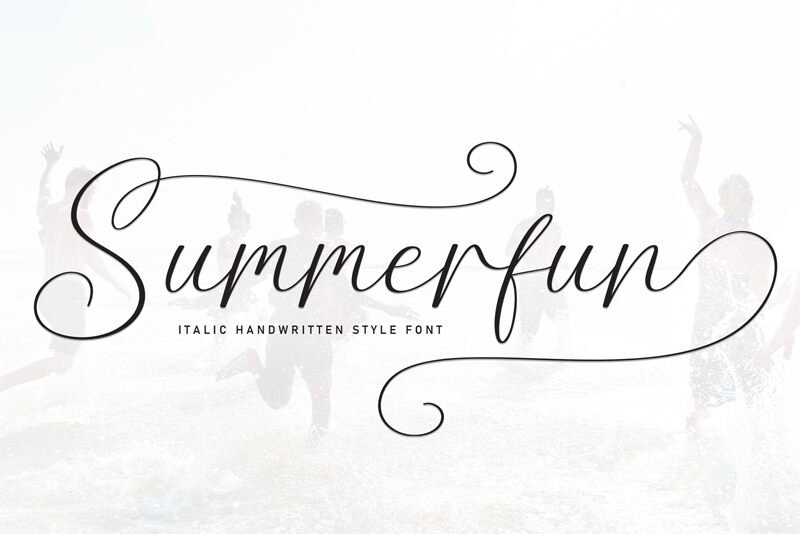
Summerfun font is a free handwritten typeface by Scratchones that captures the relaxed essence of a dreamy summer. Designed with thin and fluid strokes that create elegant characters, this font offers a distinctive look to each glyph. The consistency and connection in the strokes give it a clean look inspired by the work of professional calligraphers.
The font helps achieve a lively, stylish, and artistic feel to your branding, artwork, or any other textual representation. Summerfun is ideal for signature looks in branding and packaging, wedding invitations, titles, magazines, blog headlines, quotes, logo design, or other personal projects.